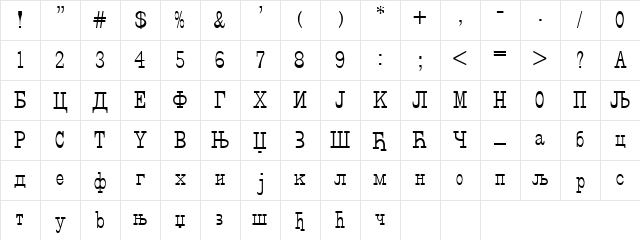
C_StageCoach Regular
Design Context for C_StageCoach
C_StageCoach is a composed and adaptable typeface that performs quietly and consistently across a wide range of design contexts.